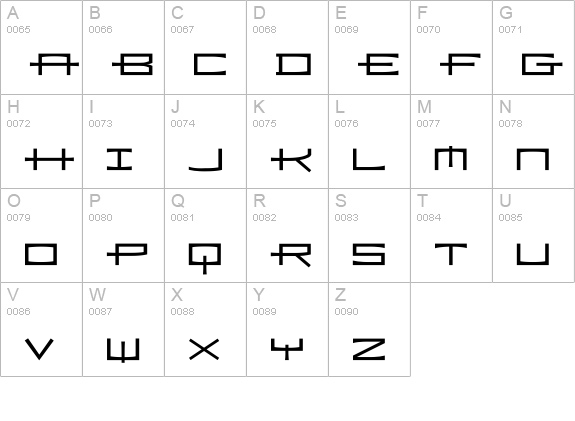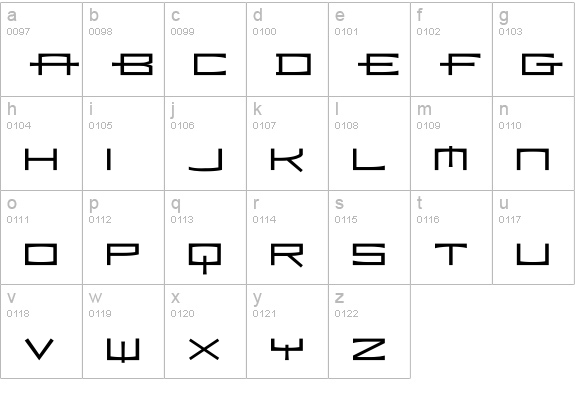
Ramiz-Regular Font Details
Ramiz-Regular is the standard, neutral variant in the Ramiz typeface family \xE2\x80\x94 well suited to general body text, paragraphs, and standard typographic work.
Ramiz-Regular is a captivating font that merges elegance with modernity, making it the perfect choice for a wide range of creative projects. With its clean lines and balanced letterforms, this typeface exudes a sense of sophistication and professionalism. Whether you're designing a logo, crafting a brand identity, or creating eye-catching headlines, Ramiz-Regular will undoubtedly elevate your design to new heights. One of the most remarkable features of Ramiz-Regular is its versatility. This font effortlessly adapts to any context, whether it's used for print materials, digital designs, or web content. Its legibility remains unparalleled, ensuring that your message is effectively conveyed to your audience, regardless of the medium. What makes Ramiz-Regular even more appealing is the fact that it is available for free download at FontsMarket.com. This means that you can readily access this stunning typeface and incorporate it into your projects without any cost. FontsMarket.com offers a user-friendly platform where you can easily browse, select, and download Ramiz-Regular, along with countless other high-quality fonts. Don't miss out on the opportunity to enhance your design work with this extraordinary font. Download Ramiz-Regular today from FontsMarket.com and unlock a world of possibilities for your creative endeavors.